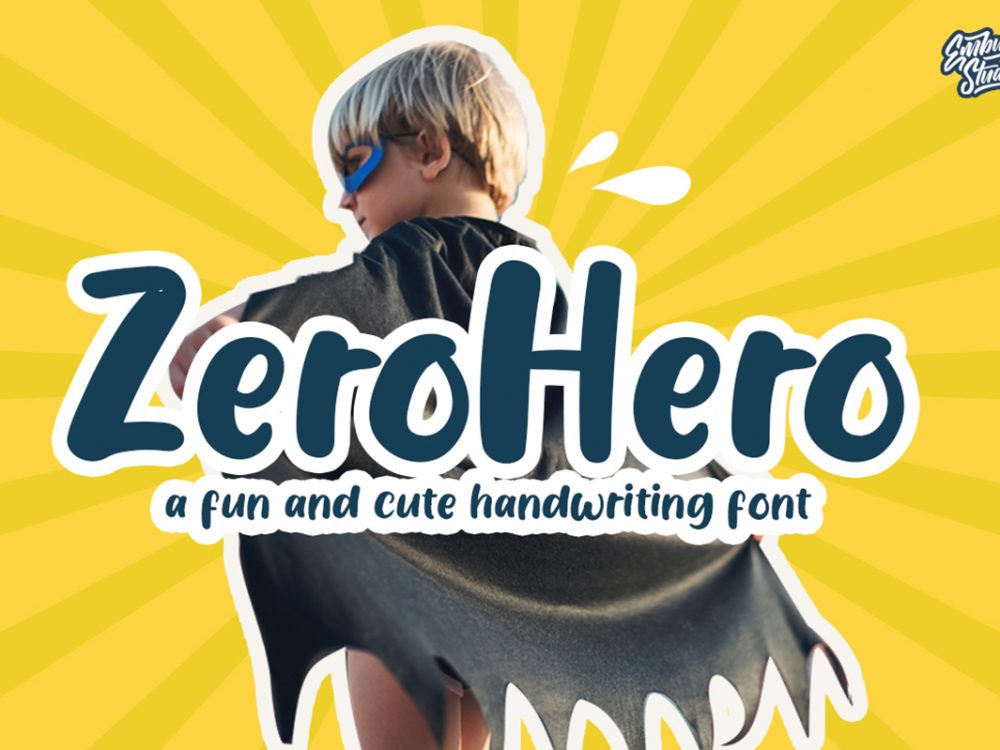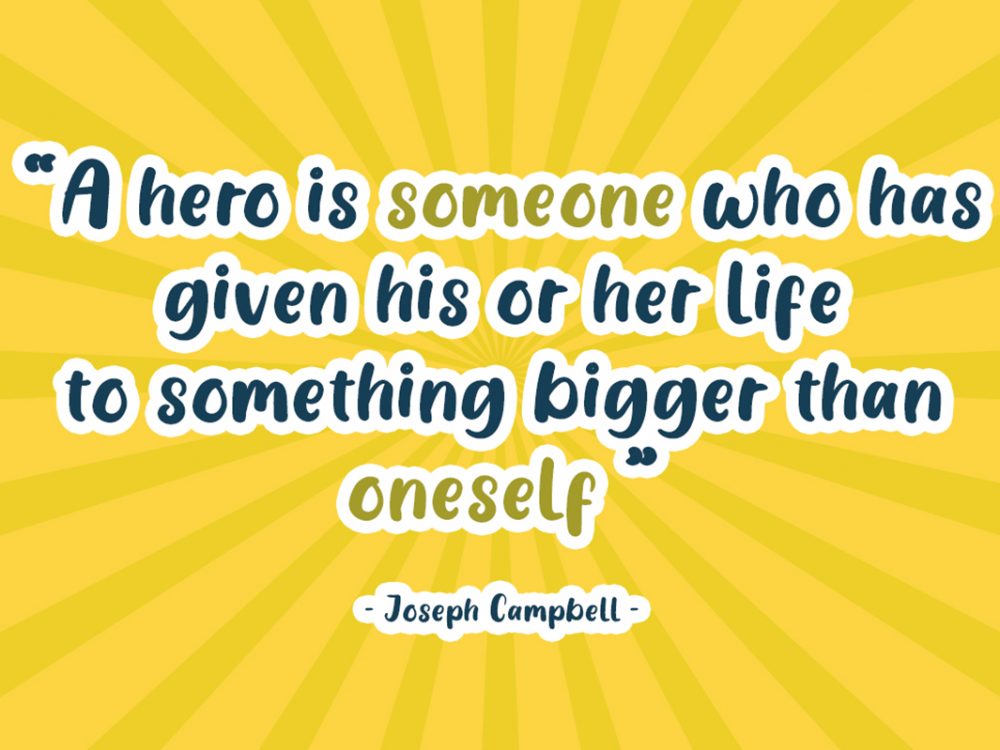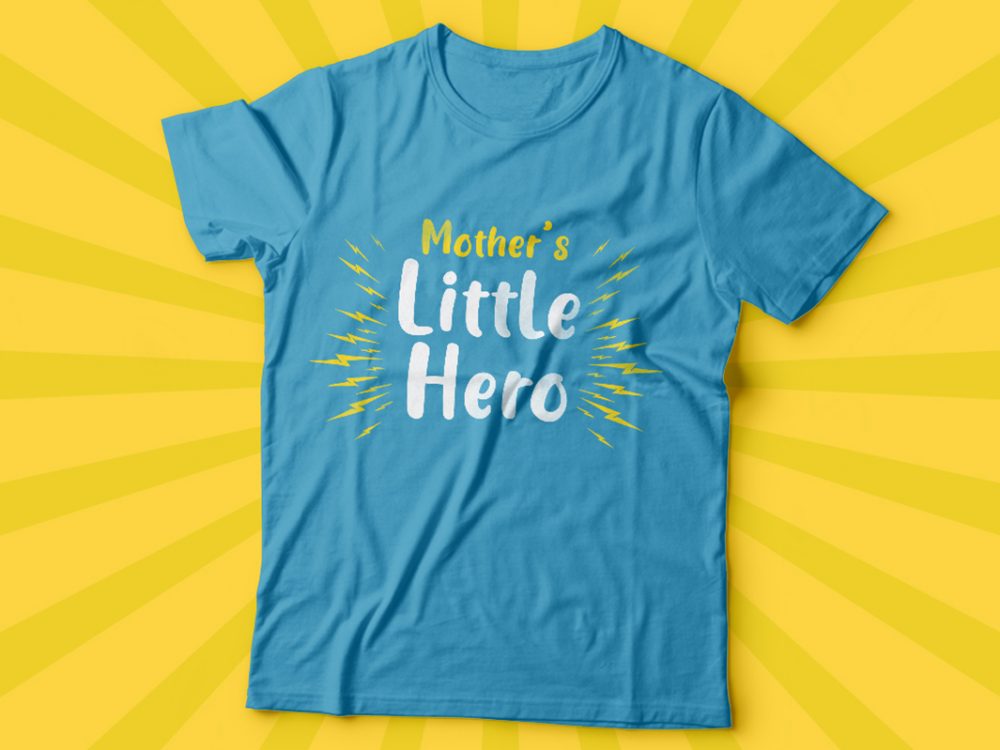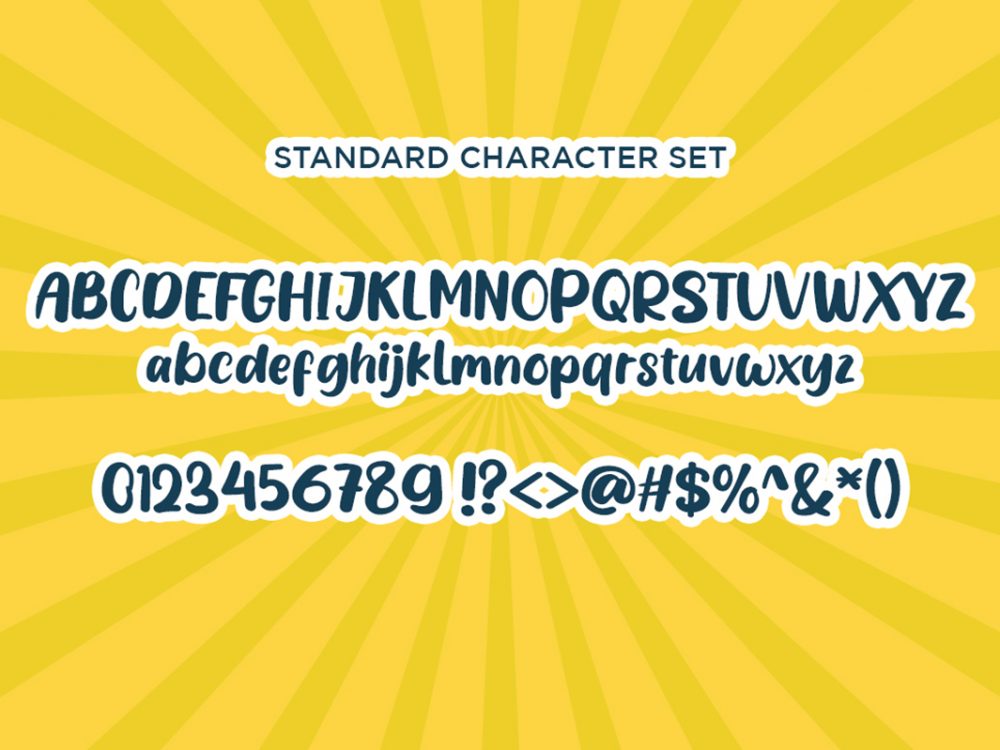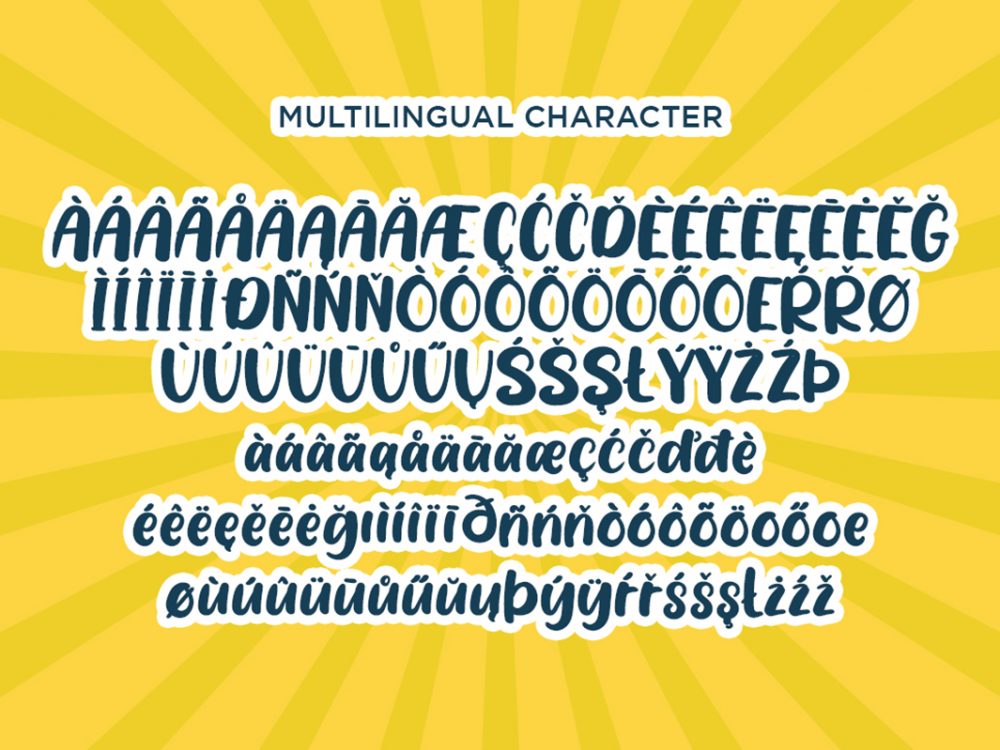
Zerohero Free Font
Zerohero Free Font is an interesting fun cute script calligraphic font that imitates writing with a brush and is well suited for creating various design projects in a modern style. You can use this font to create memorable posters, wedding invitations, cards, branding, flyers, and more. Improve the quality and increase the popularity of your design projects using this font. If you like it don’t forget to check out the full version.